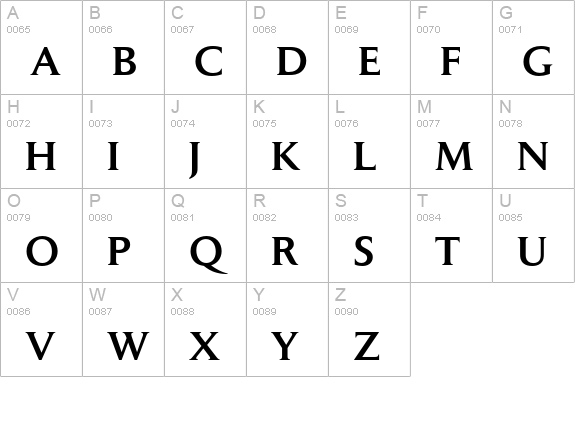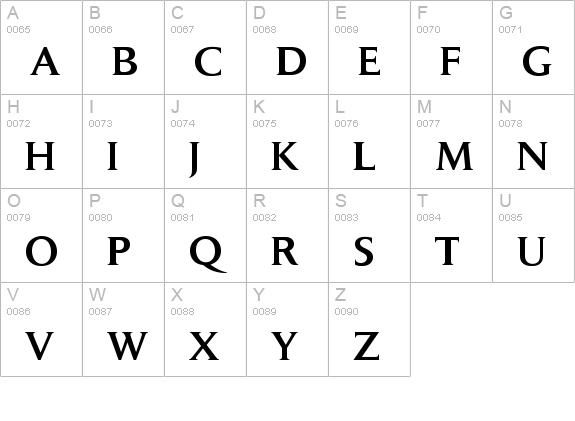
Jaeger Daily News Medium is a balanced, medium-weight variant in the Jaeger typeface family \xE2\x80\x94 well suited to sub-headlines, navigation, and balanced editorial work.
Introducing Jaeger Daily News Medium font, the epitome of elegance and sophistication. With its timeless design and effortless legibility, this font is a perfect choice for all your editorial projects. The medium weight strikes the perfect balance, making it ideal for headlines, subheadings, and body text alike. Jaeger Daily News Medium offers a harmonious blend of classic and contemporary elements, resulting in a versatile typeface that exudes professionalism and refinement. Its clean lines and balanced proportions ensure optimal readability across various mediums, from print to digital. What sets Jaeger Daily News Medium apart is its availability for free download at FontsMarket.com. Yes, you read that right - this exceptional font can be yours without any cost. Whether you're a seasoned designer or a novice enthusiast, this generous offer allows you to elevate your creative projects without breaking the bank. Don't miss out on the opportunity to enhance your designs with the sophisticated aura of Jaeger Daily News Medium. Download it today at FontsMarket.com and unlock a world of typographic excellence at your fingertips. Embrace the freedom to create and elevate your designs with this remarkable font.